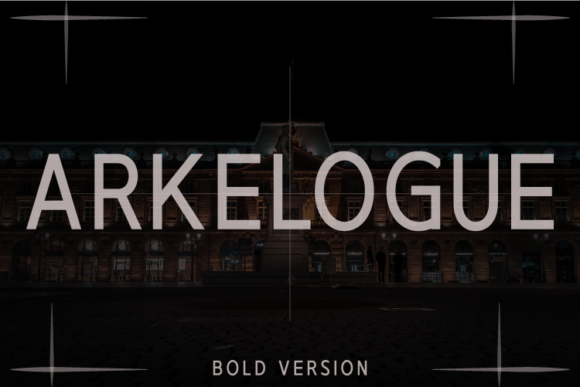
Arkelogue: A Clean and Versatile Font
Arkelogue is a simple and casual sans serif font that exudes a clean feel. Its neat and beautiful arrangement of letters makes it an excellent choice for both formal and non-formal designs. What I love about Arkelogue is its range – it comes in 10 different weights, from thin to extra black versions, allowing you to choose the perfect weight for your project.
- ✨ **Clean and modern look**: Arkelogue’s sans serif design gives it a fresh and contemporary feel.
- ✅ **Versatile weights**: With 10 weights to choose from, you can use Arkelogue for a wide range of projects, from elegant headings to bold statements.
- 💡 **Easy to read**: The font’s clear and simple design makes it easy to read, even at smaller sizes.
While Arkelogue is an excellent font, there are a few things to keep in mind:
- 🤔 **Limited character set**: As with many sans serif fonts, the character set may be limited, which could impact its use in certain projects.
- ⚠️ **Not ideal for body text**: While Arkelogue is easy to read, its clean design may make it less suitable for long blocks of body text.
The Story Behind Arkelogue
Arkelogue was designed with the goal of creating a clean and versatile font that could be used in a variety of design projects. The designer aimed to create a font that was both modern and timeless, with a focus on legibility and aesthetics.
| Font Name | Arkelogue Bold Font |
| Author | Huntype |
Q: What is Arkelogue font?
Arkelogue is a simple and casual sans serif font with a clean feel, available in 10 different weights.
Q: Is Arkelogue suitable for body text?
While Arkelogue is easy to read, its clean design may make it less suitable for long blocks of body text.